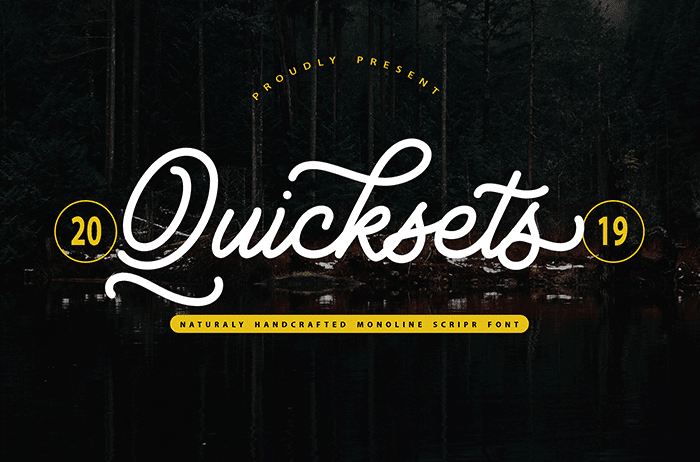
QuickSets Script Font
QuickSets is a sweet, soft hand-lettered script font. This font is the perfect fit for making original and outstanding designs. This font free for personal use only, if you need commercial use and full version please download in here.